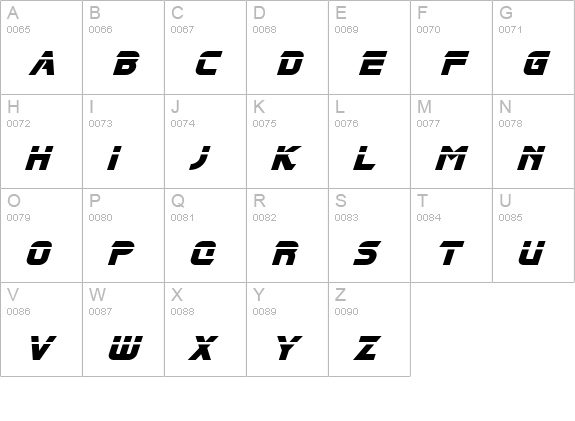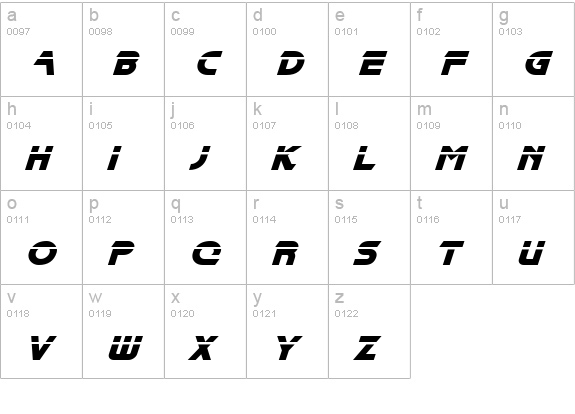
BladeCutThruOblique Font Details
BladeCutThruOblique font is a sleek and modern typeface that exudes elegance and sophistication. Its sharp angles and unique oblique design make it stand out from the crowd, adding a touch of edginess to any design project. Perfect for headlines, logos, and branding materials, BladeCutThruOblique font commands attention and leaves a lasting impression. And the best part? BladeCutThruOblique font is available for free download at FontsMarket.com. So whether you're a seasoned designer looking to add a fresh new font to your collection or a novice designer exploring different typography options, BladeCutThruOblique font is the perfect choice. Download it today and elevate your design projects to new heights with this stunning and versatile typeface.